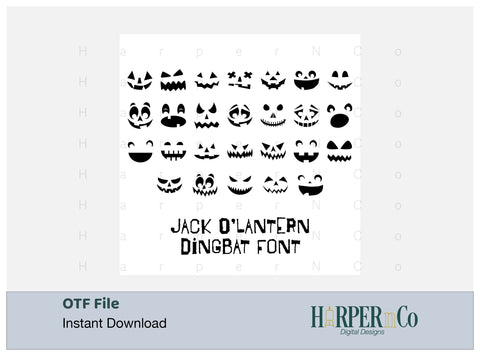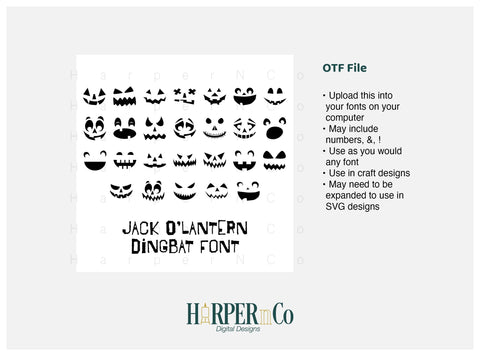
Jack O'lantern Dingbat Font
Jack O’Lantern Faces is a fun and playful dingbat font featuring various Jack O’Lantern shapes instead of letters. Each character in the font is a different face design, perfect for adding a spooky touch to your Halloween projects, decorations, or pumpkins.